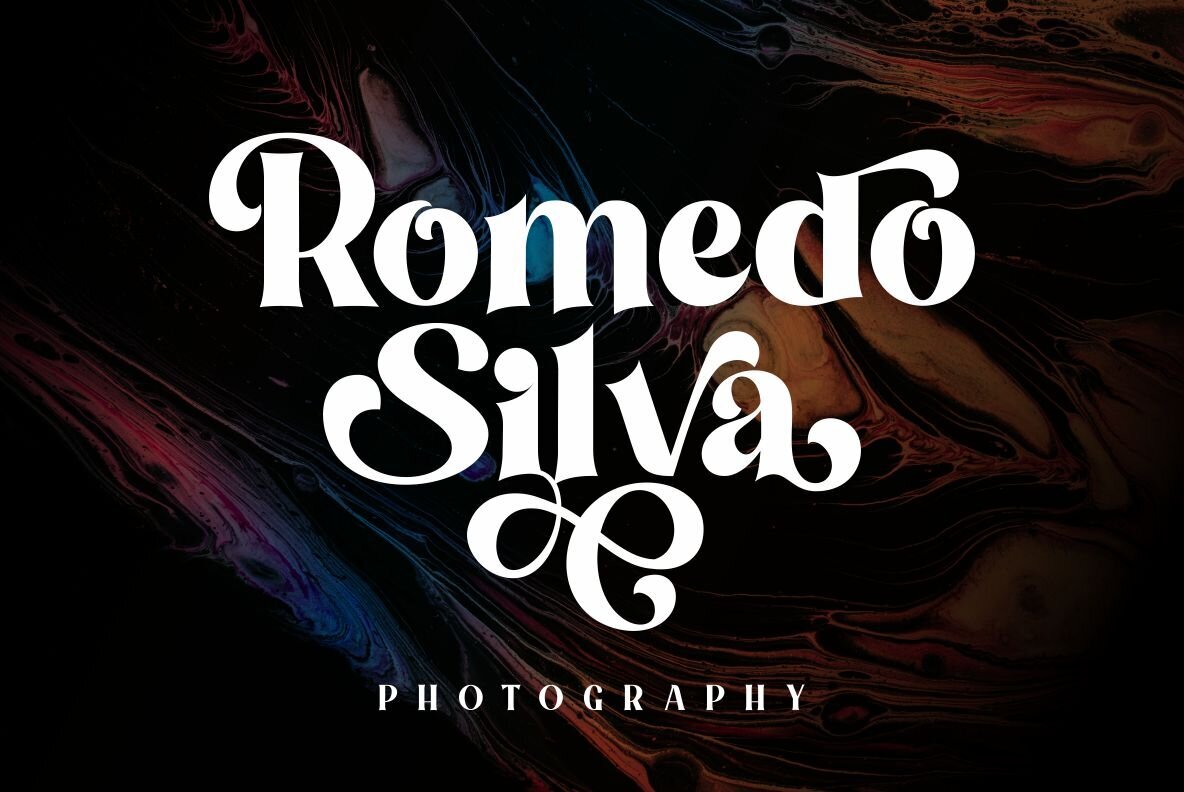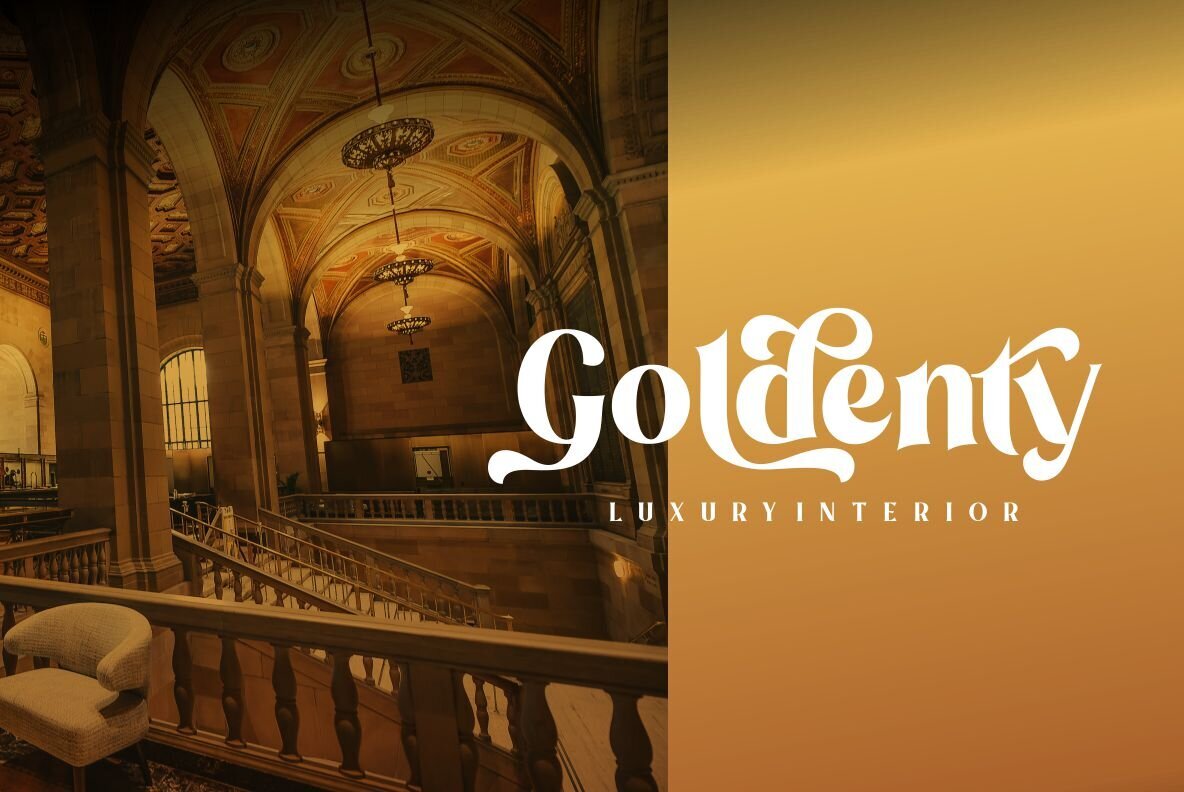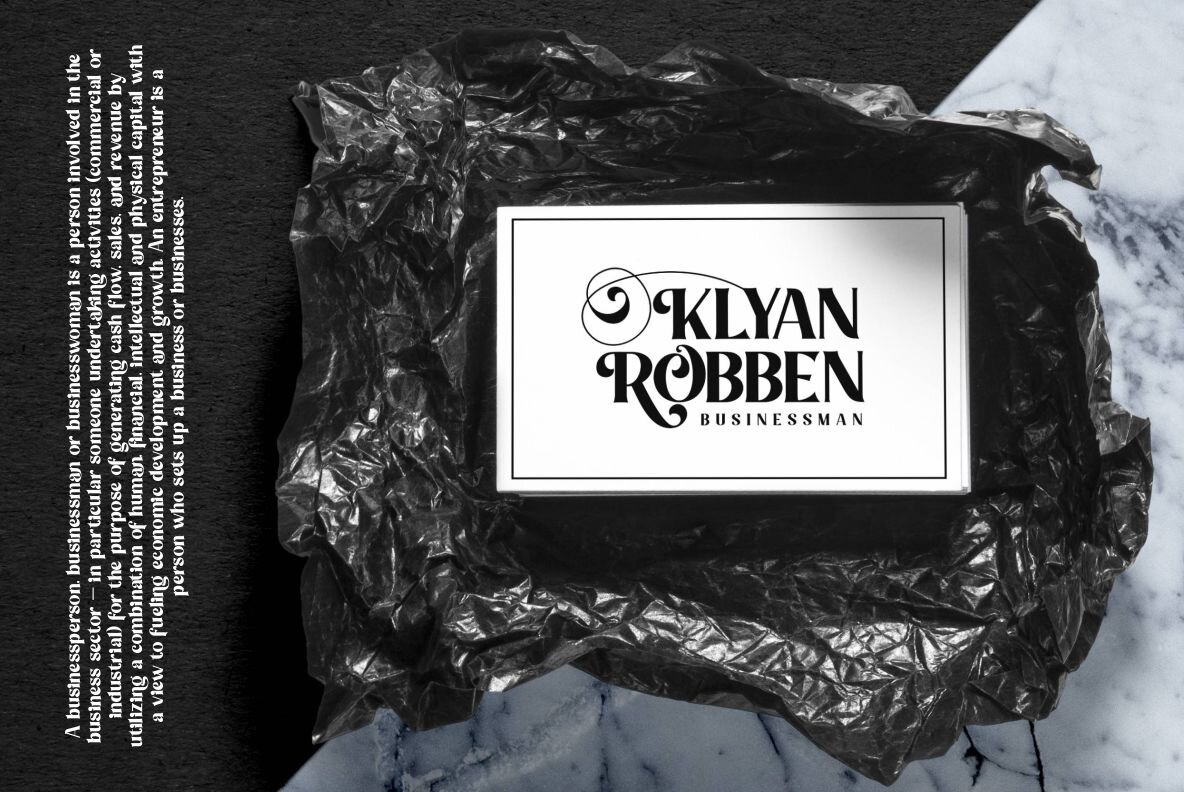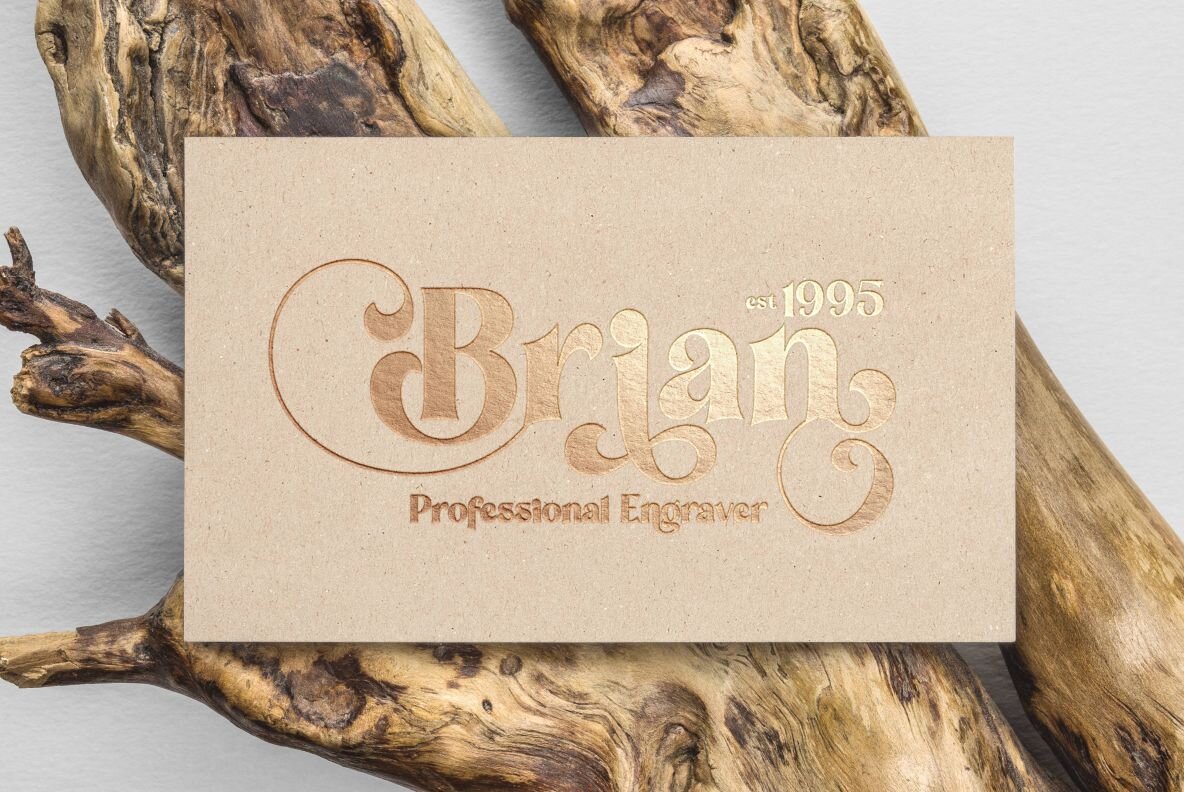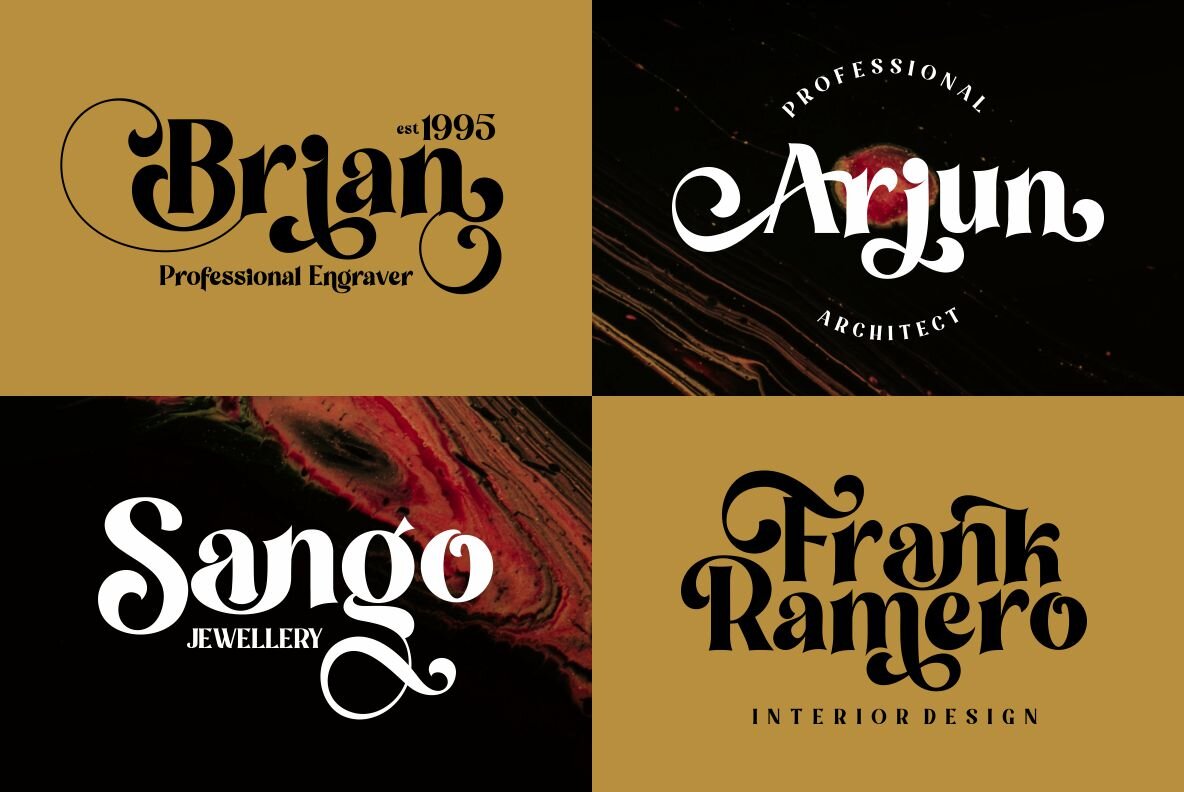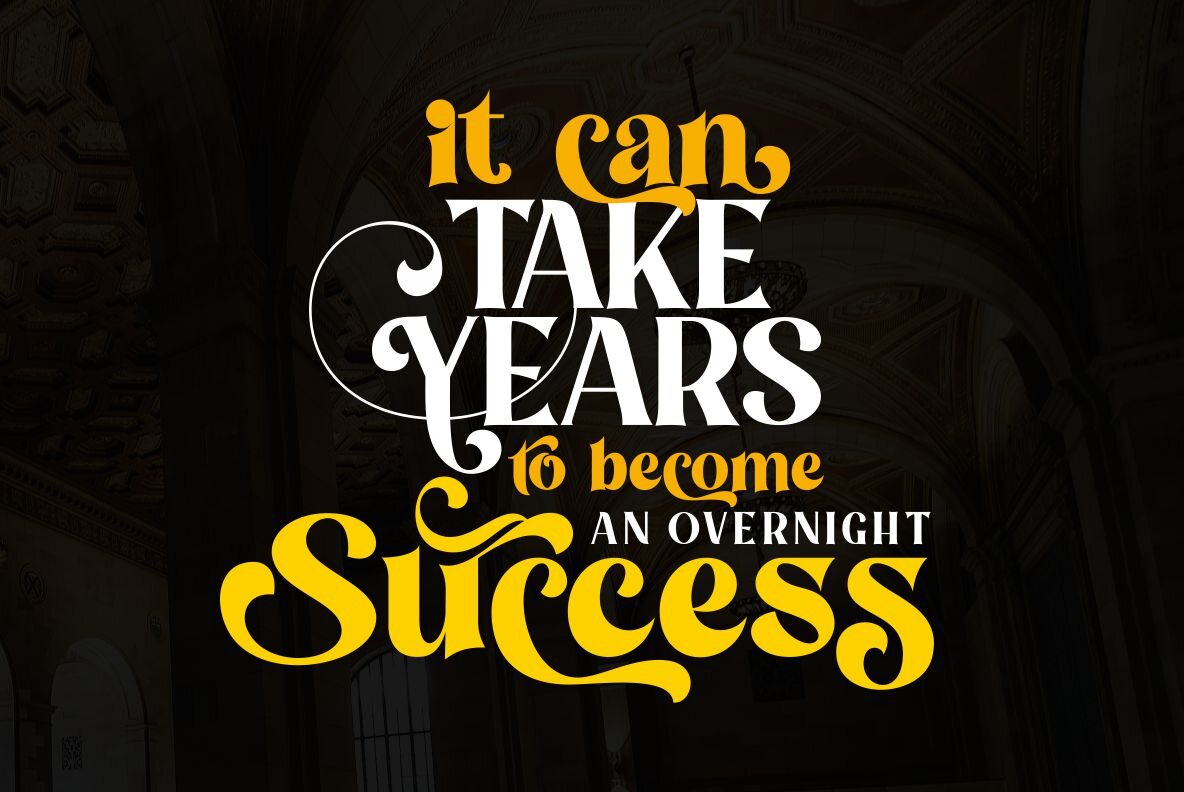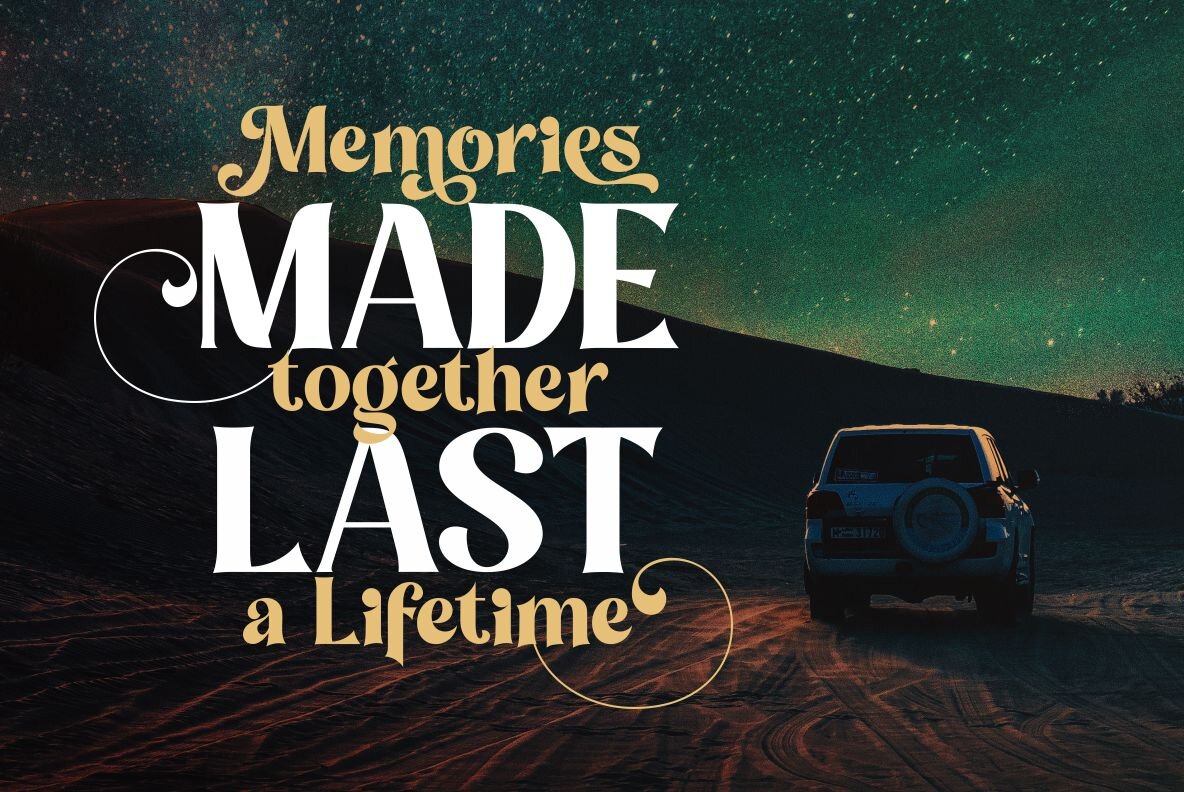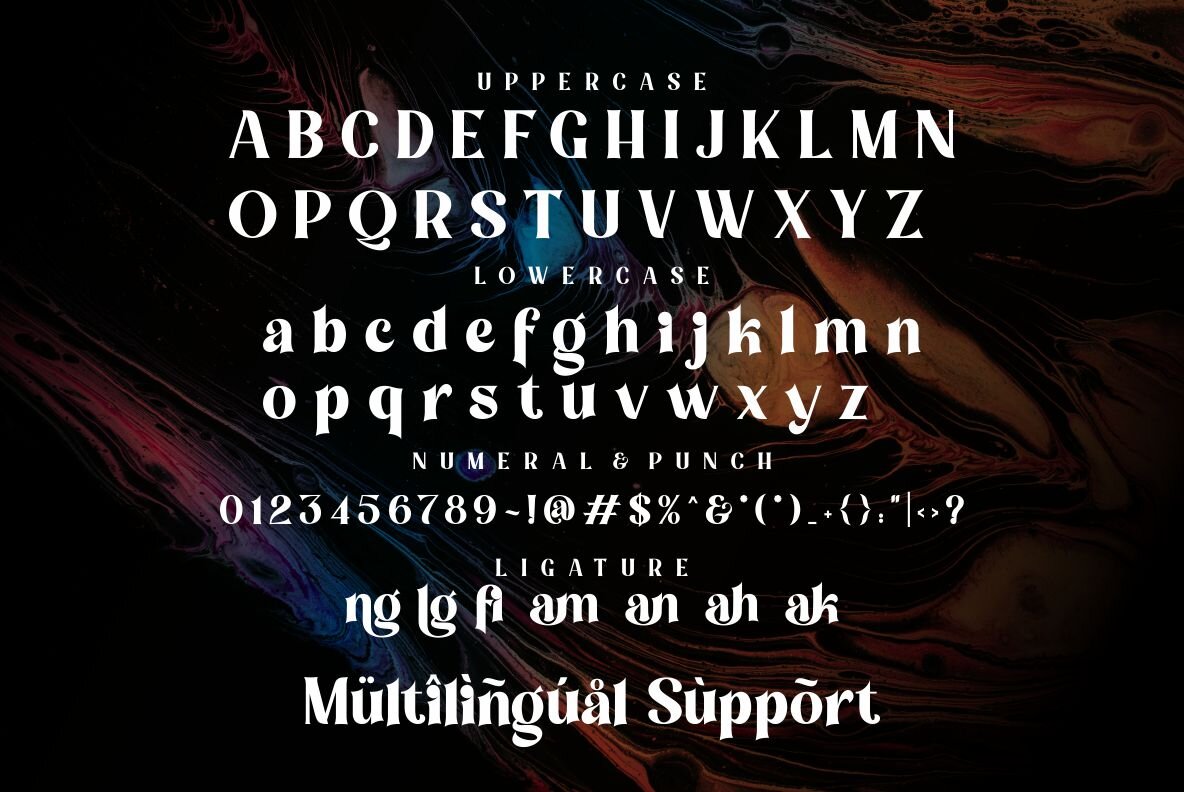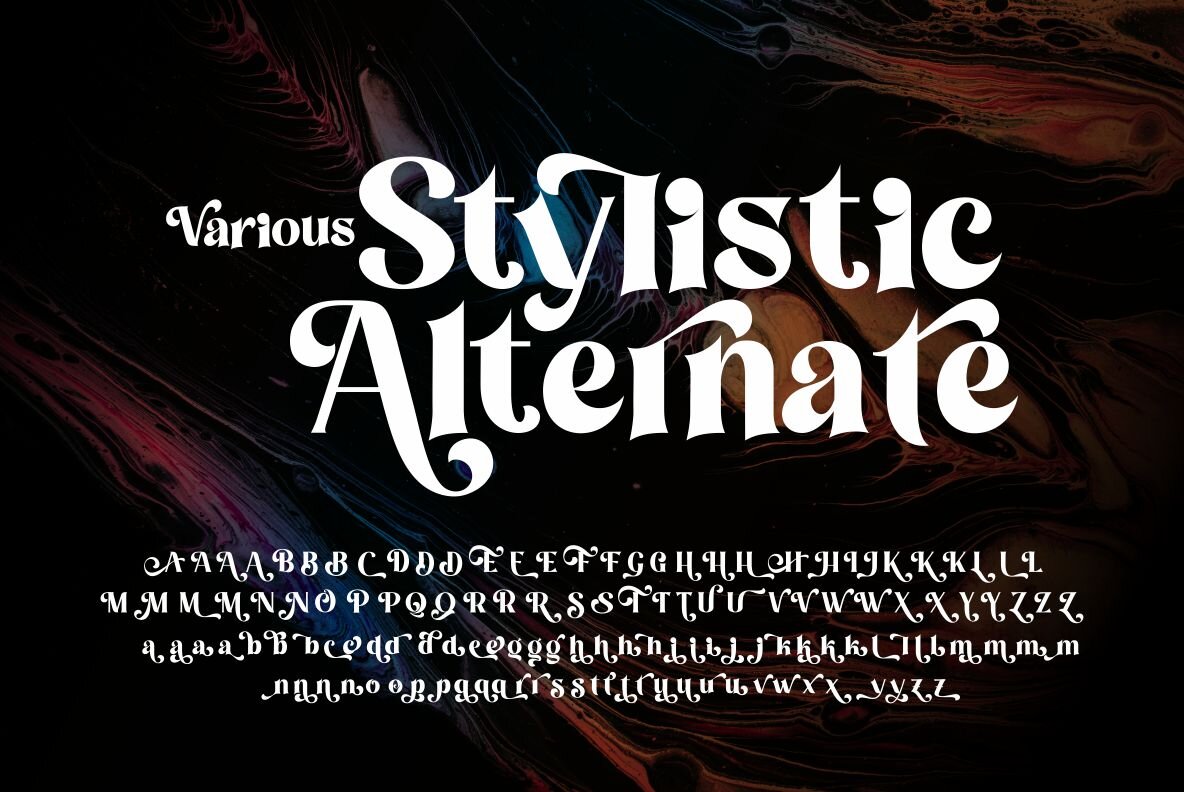
Mount Hills Font
Mount Hills Regular
Mount Hills, designed by Ergibi Studio, artfully blends sophistication with a touch of uniqueness through its carefully crafted serif design. This typeface distinguishes itself from standard sans fonts by offering a plethora of alternate characters, making it perfect for projects that demand an elegant and distinguished appeal. Ideal for headlines, logos, and various forms of print media, Mount Hills elevates designs for coffee shops, restaurants, magazine headers, and more. To access alternate characters, use the glyphs panel in Adobe Photoshop by navigating to Window → Glyphs, or in Adobe Illustrator by going to Type → Glyphs.Mount Hills: Luxurious Typeface with Distinct Serif Details